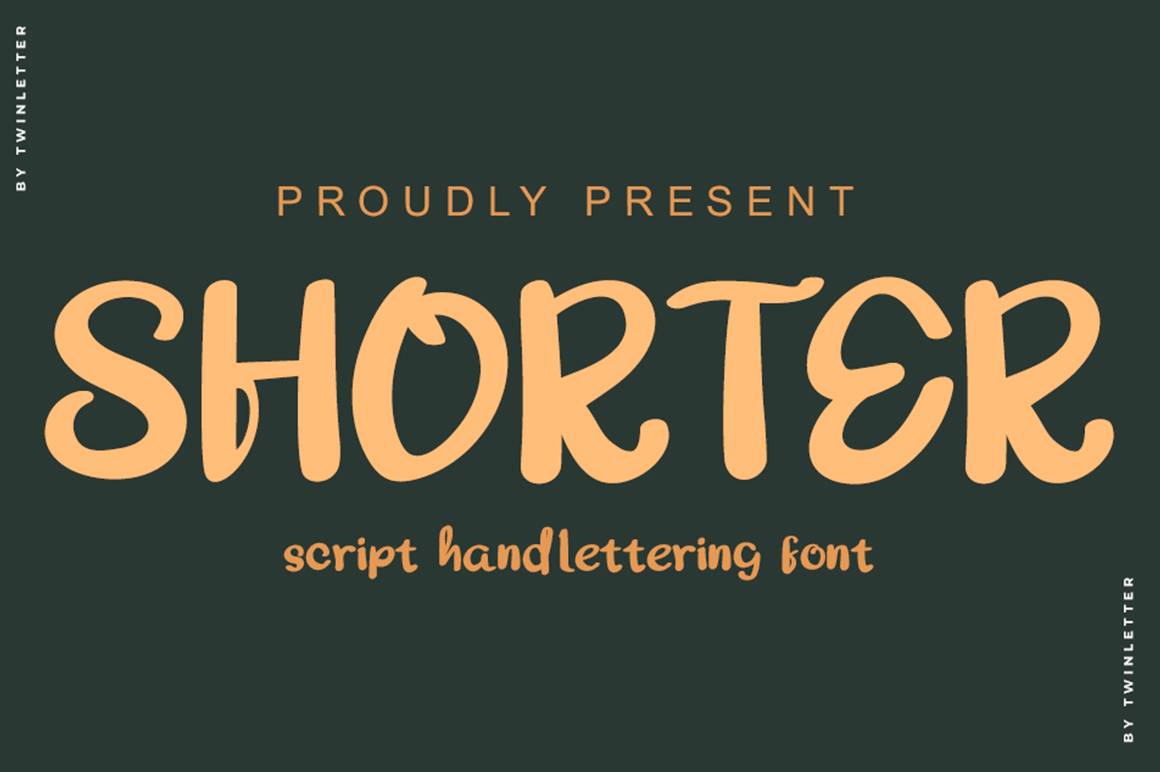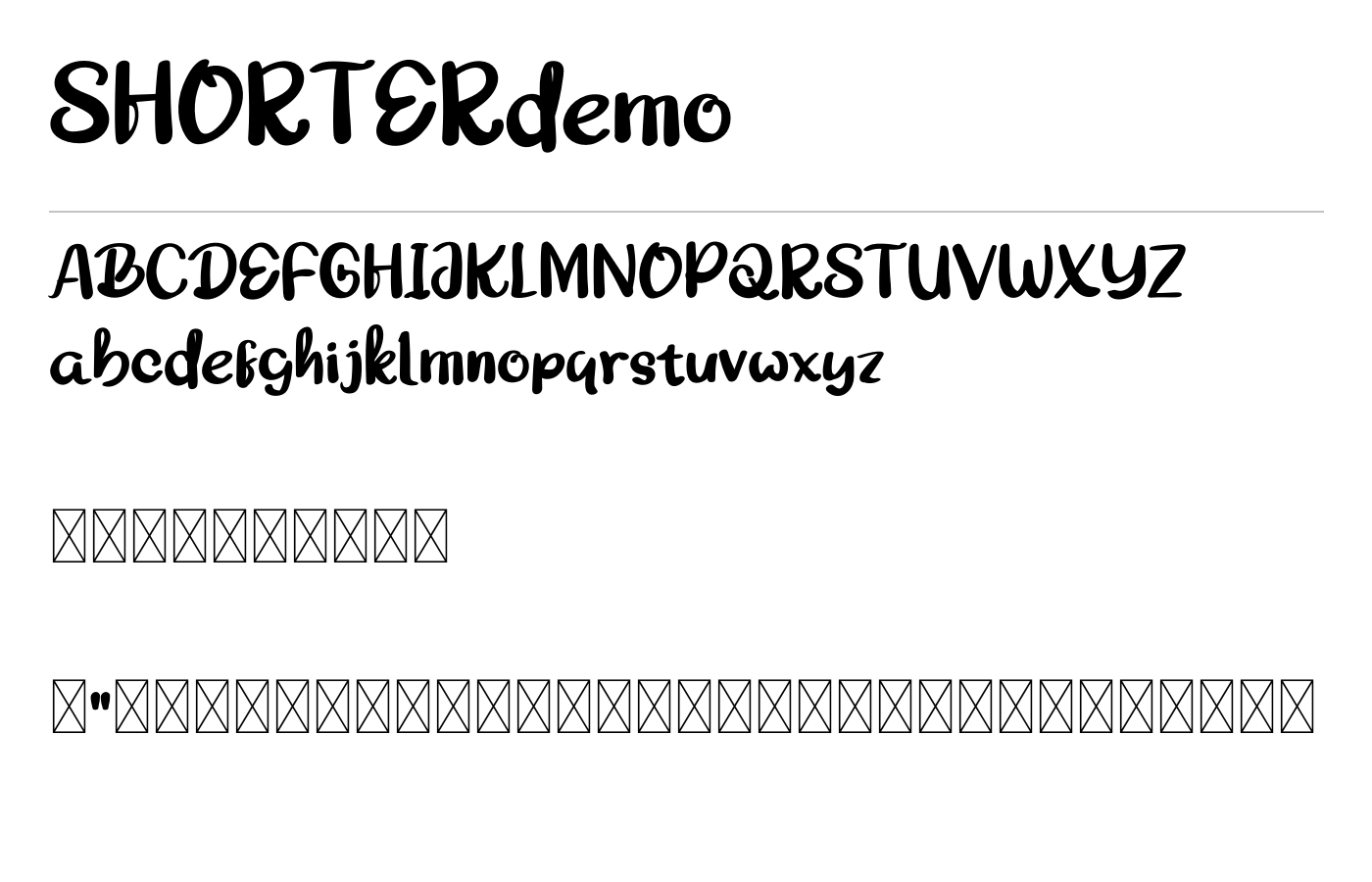
Shorter Font is a playful and friendly script-style typeface with a casual, hand-drawn feel. Its rounded, bold strokes and slightly condensed letterforms give it good readability while conveying warmth and approachability, making it ideal for informal branding, children’s materials, and creative projects that benefit from a lively, personal touch. This font works well in headlines, logos, and packaging where a fun yet clear voice is desired.
Shorter Font
About Shorter Font